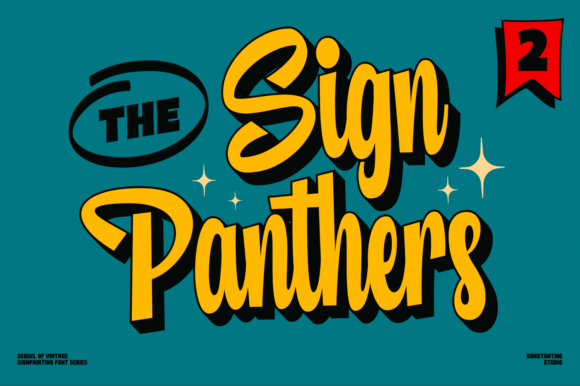
Introducing Sign Panthers 2 Font: Elevate Your Designs with a Stunning Trio
Are you looking for a font that can add a touch of elegance and friendliness to your projects? Look no further than Sign Panthers 2 Font. This comprehensive trio font is designed to provide a branded yet approachable feel to your designs. In this article, we’ll dive into the features and benefits of Sign Panthers 2 Font, and explore how it can elevate your typography game.
What is Sign Panthers 2 Font?
Sign Panthers 2 Font is a versatile font family that consists of three distinct styles: script, dingbats, and sans serif. This trio font is carefully crafted to provide a cohesive look and feel, making it perfect for a wide range of design applications. Whether you’re working on a branding project, a website, or a marketing campaign, Sign Panthers 2 Font has got you covered.
The Three Styles of Sign Panthers 2 Font
One of the standout features of Sign Panthers 2 Font is its three unique styles, each with its own distinct character.
- Script Style: The script style is perfect for adding a touch of elegance and sophistication to your designs. With its flowing curves and connected letters, it’s ideal for creating beautiful headings and titles.
- Dingbats Style: The dingbats style is a fun and creative way to add visual interest to your designs. With a range of icons and symbols, you can use it to create engaging and interactive elements.
- Sans Serif Style: The sans serif style is a clean and modern font that’s perfect for body text and captions. Its clear and legible design makes it easy to read, even at small sizes.
Combining Styles for Maximum Impact
One of the benefits of Sign Panthers 2 Font is its versatility. The three styles can be combined together to create a unique and visually appealing design. For example, you could use the script style for headings, the sans serif style for body text, and the dingbats style for icons and graphics. This flexibility makes it easy to create a cohesive brand identity that stands out from the crowd.
Benefits of Using Sign Panthers 2 Font
So why choose Sign Panthers 2 Font for your next project? Here are just a few benefits:
- Unique and Versatile: Sign Panthers 2 Font is a one-of-a-kind font family that offers a range of creative possibilities.
- Elegant and Friendly: The font’s elegant script style and friendly sans serif style make it perfect for creating a branded yet approachable feel.
- Time-Saving: With three styles in one font family, you can save time and effort by using a single font for multiple design elements.
- Scalable: Sign Panthers 2 Font is designed to be scalable, making it perfect for use in a variety of design applications, from business cards to billboards.
Tips and Tricks for Getting the Most Out of Sign Panthers 2 Font
Here are a few tips and tricks to help you get the most out of Sign Panthers 2 Font:
- Use it for Branding: Use Sign Panthers 2 Font to create a consistent brand identity across all your marketing materials.
- Mix and Match: Mix and match the different styles to create a unique and visually appealing design.
- Pay Attention to Kerning: Pay attention to kerning and tracking to ensure that your text looks professional and polished.
- Use it for Web Design: Use Sign Panthers 2 Font for web design, making sure to choose the right font sizes and styles for optimal readability.
In conclusion, Sign Panthers 2 Font is a stunning and comprehensive trio font that’s perfect for designers looking to add a touch of elegance and friendliness to their projects. With its three unique styles, versatility, and scalability, it’s an excellent choice for a wide range of design applications. By following the tips and tricks outlined in this article, you can get the most out of Sign Panthers 2 Font and create designs that stand out from the crowd.